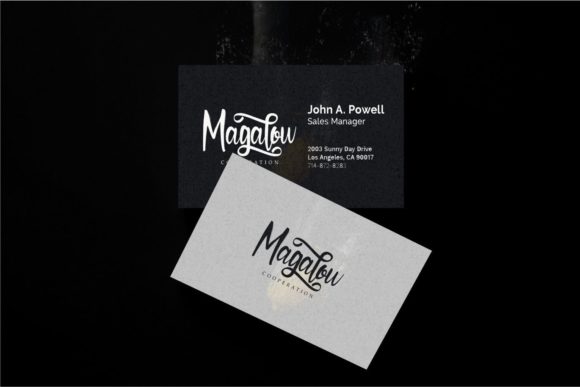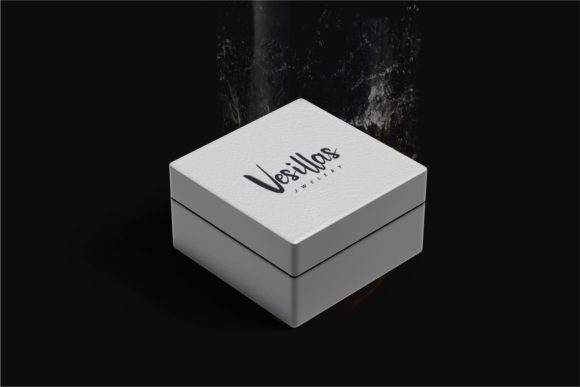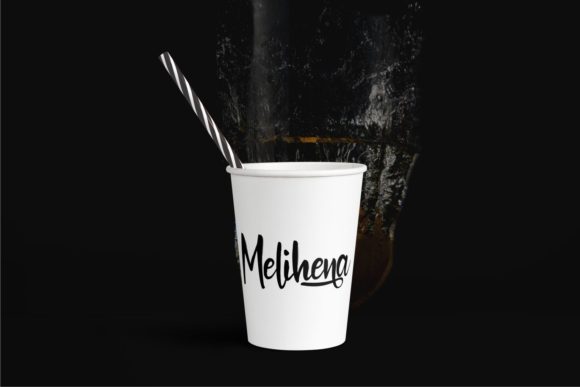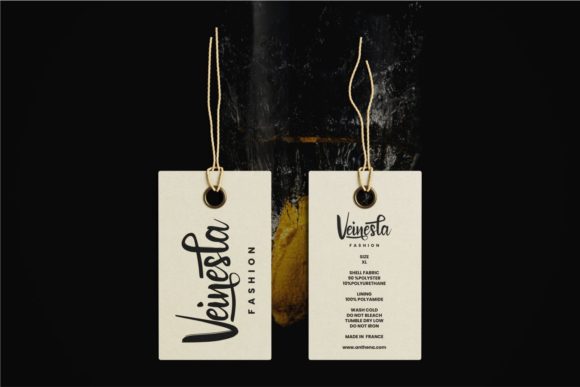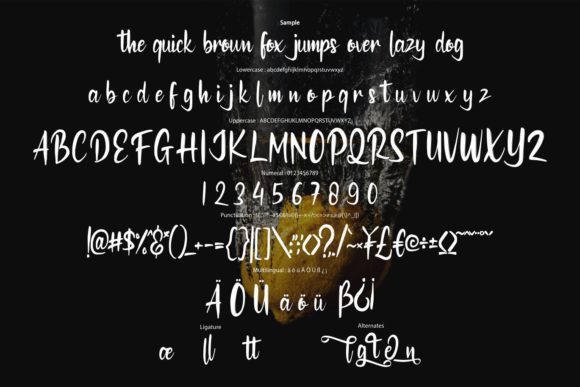
Clisteine Font
About Clisteine Font
Clisteine is a stylish and delicate handwritten font. Dainty and joyful, this font will be ideal for writing wedding invitations, cards or any other design that may need a romantic, personalized touch!